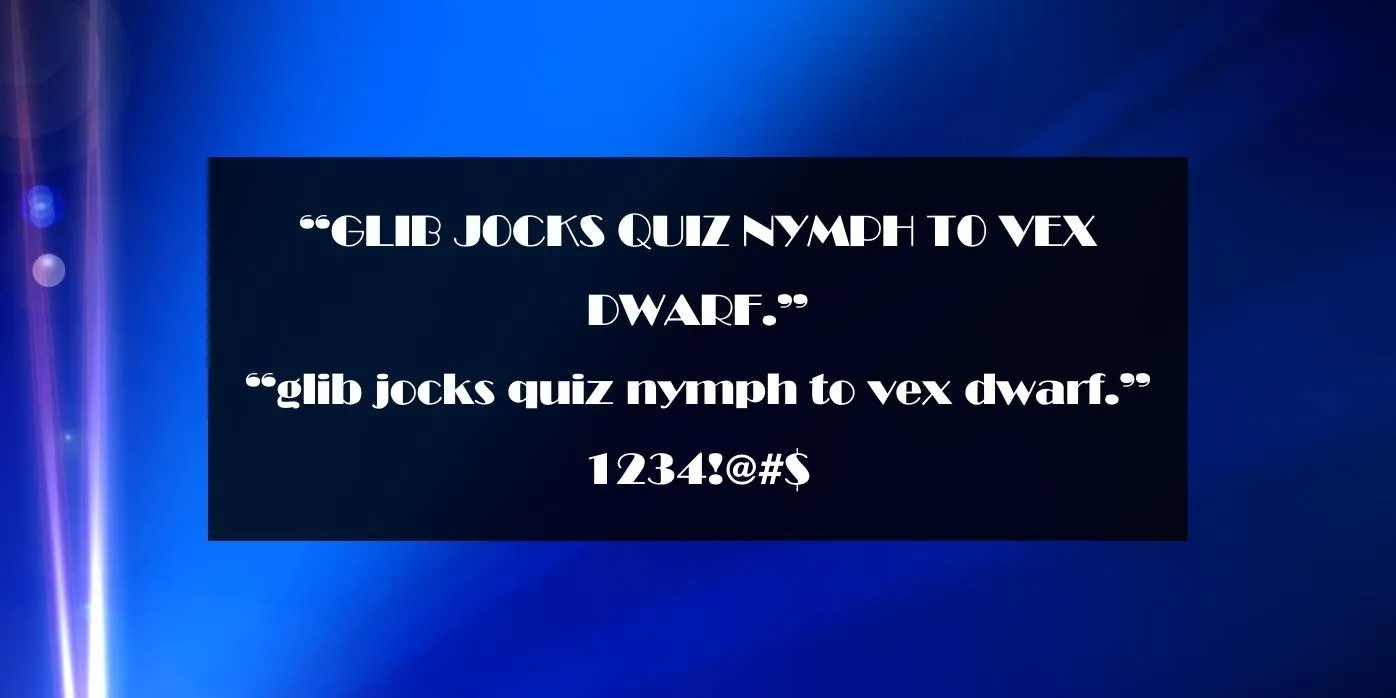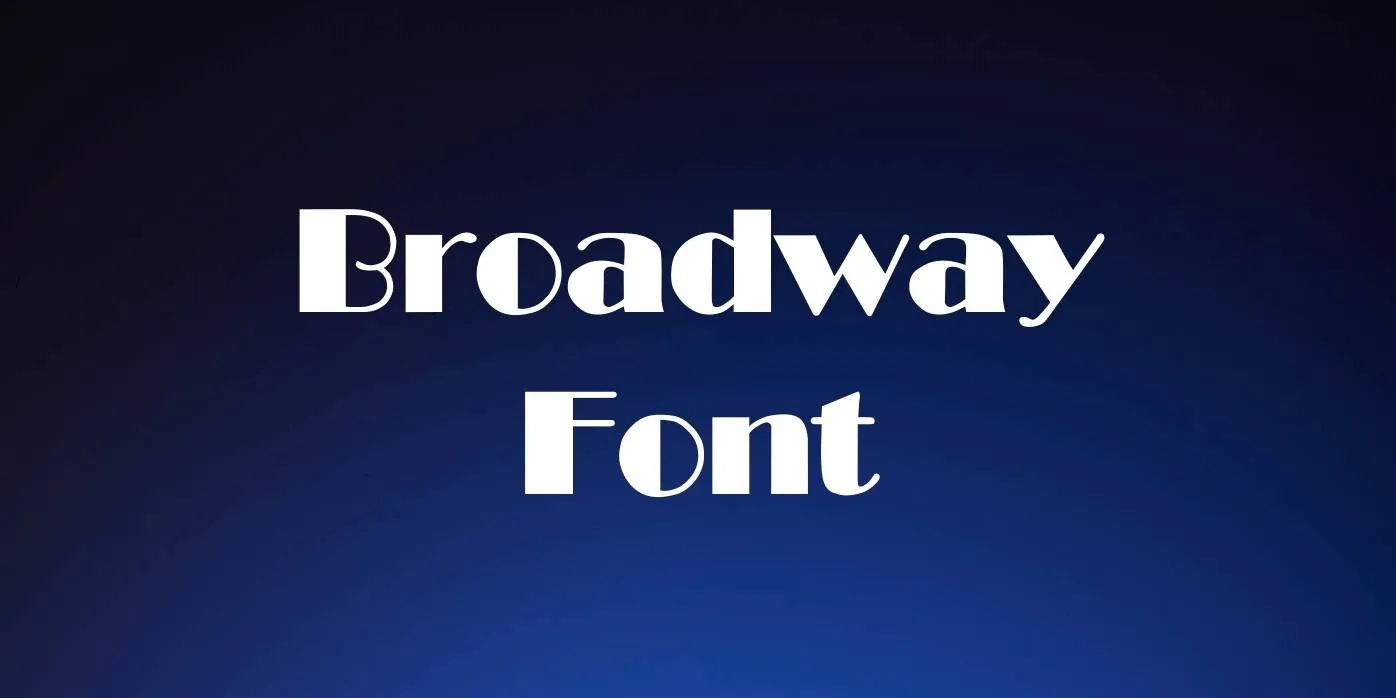
Broadway Font
Broadway Font is a modern typeface that was designed by Vladimir Nikolic.  This font family belongs to the display family. The first release of this font was in 2017. The typeface is available in two weights, Broadway Regular and Broadway Bold. This typeface includes different weights.
The Broadway Font has a unique design that is perfect for any project. The font is available in two different styles. The Regular style is perfect for branding and poster projects, while the Bold style is perfect for web projects. You can also this typeface for Canva, google docs, and Adobe.